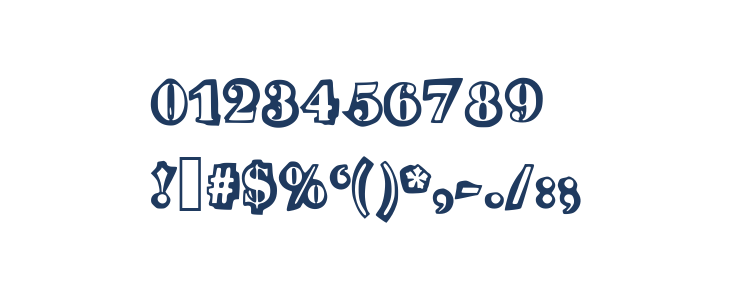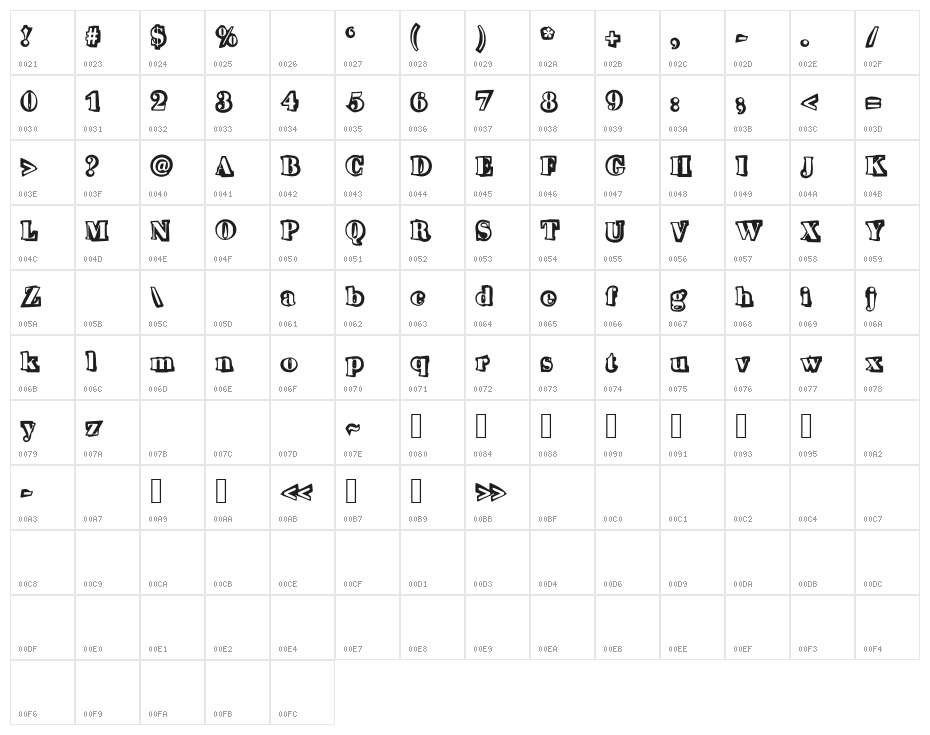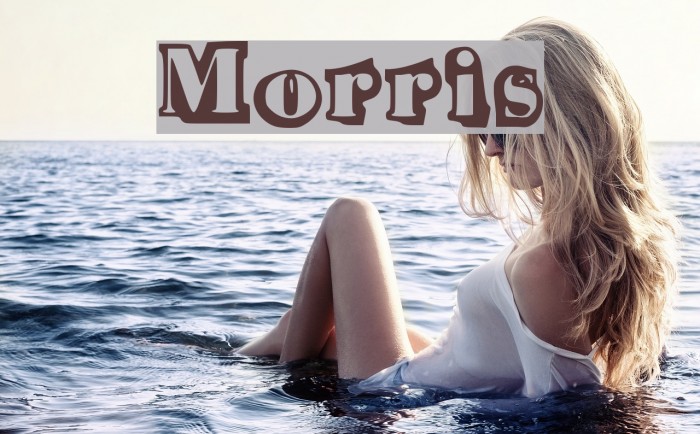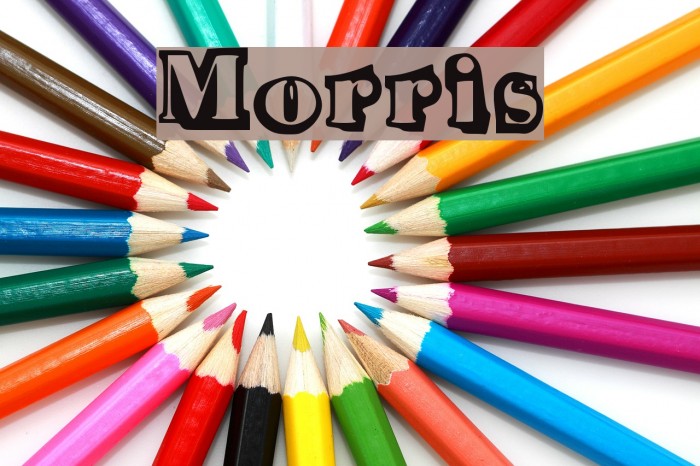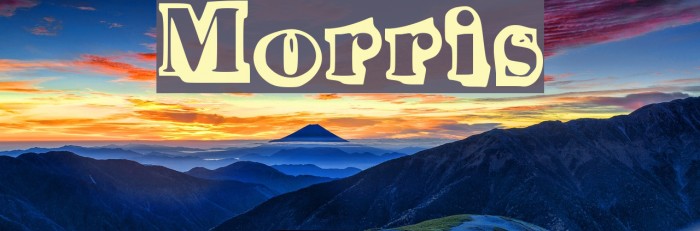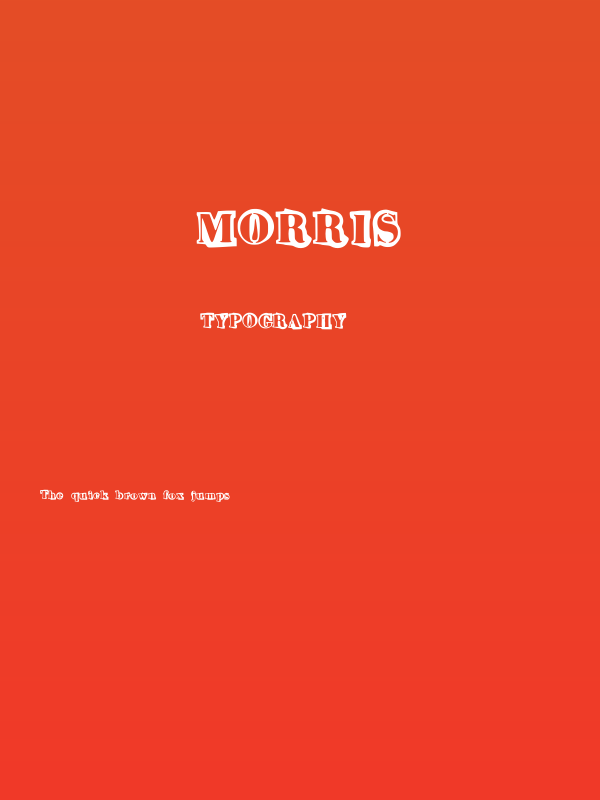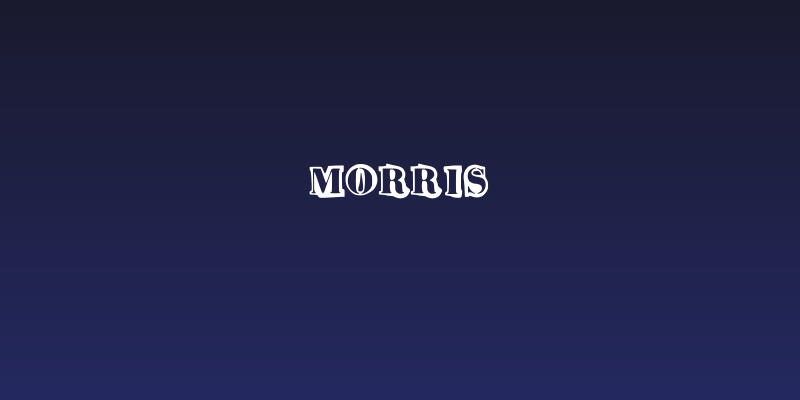
Morris Font
Morris Description
This font features a bold and dramatic style with a three-dimensional effect, achieved through the use of thick, shadowed strokes. The characters are robust and have a playful yet vintage feel, reminiscent of classic circus or carnival posters. The uppercase letters are particularly striking, with strong serifs and a sense of movement. The lowercase letters maintain the same boldness, ensuring consistency across the typeface. Numbers and special characters are equally bold, making them stand out. This font is ideal for creating eye-catching headlines or logos that require a touch of nostalgia and flair.
| Proposed Projects | Perfect for vintage-themed posters, circus or carnival event flyers, retro branding, and eye-catching headlines. |